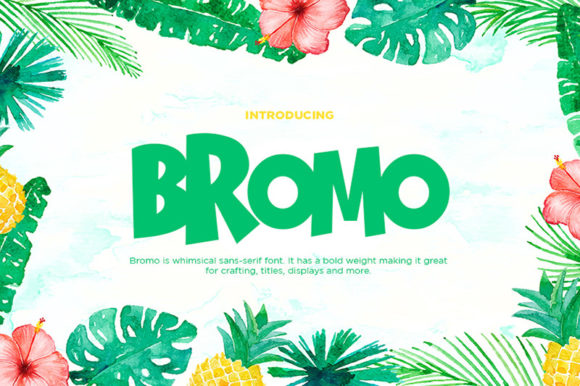
Step into a world of charm and enchantment with Bromo Font, the ultimate display font crafted to ignite imagination and bring a smile to your creative endeavors. Designed by the brilliant minds at DCLL Studio, Bromo captivates with its playful and bold strokes, reminiscent of a child's whimsical drawings.
Indulge in the joy of crafting captivating titles, mesmerizing displays, and enchanting branding materials that will leave an unforgettable mark. With its thick, inviting letters and a cool, inviting vibe, Bromo effortlessly elevates your designs, making them pop with personality and charm.
Unleash your creativity and explore the endless possibilities that await with Bromo Font. Create letterheads, stationery, and logos that exude warmth and playfulness, capturing the essence of childhood wonder. Its unique and eye-catching style is guaranteed to make your designs shine brighter than the stars.
Bromo Font is not just a font; it's an invitation to embark on a creative journey, transforming ordinary words into captivating works of art. Whether you're a seasoned designer or just starting your artistic voyage, Bromo will guide you towards creating designs that speak to the heart and leave a lasting impression.
So, embrace the magic of Bromo Font today and let your imagination soar. Experience the joy of crafting designs that radiate pure delight, inspiring smiles and igniting a spark of creativity in every project you undertake.